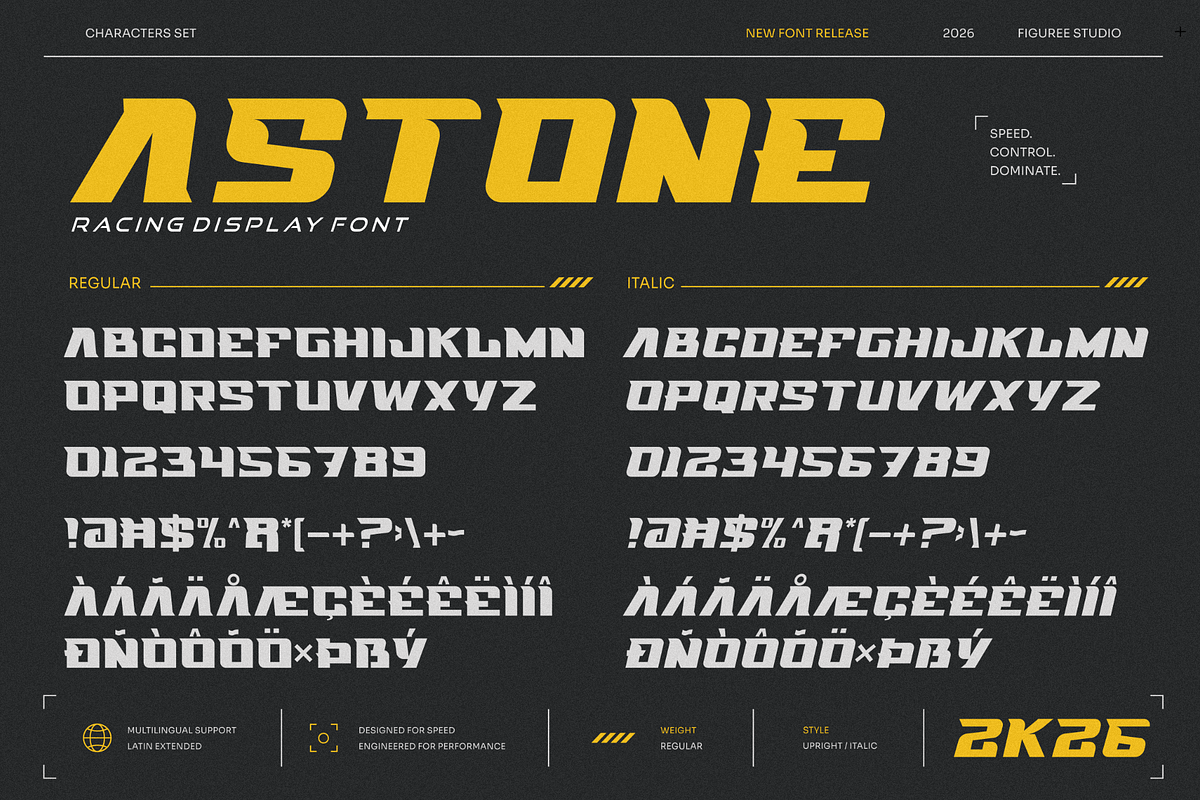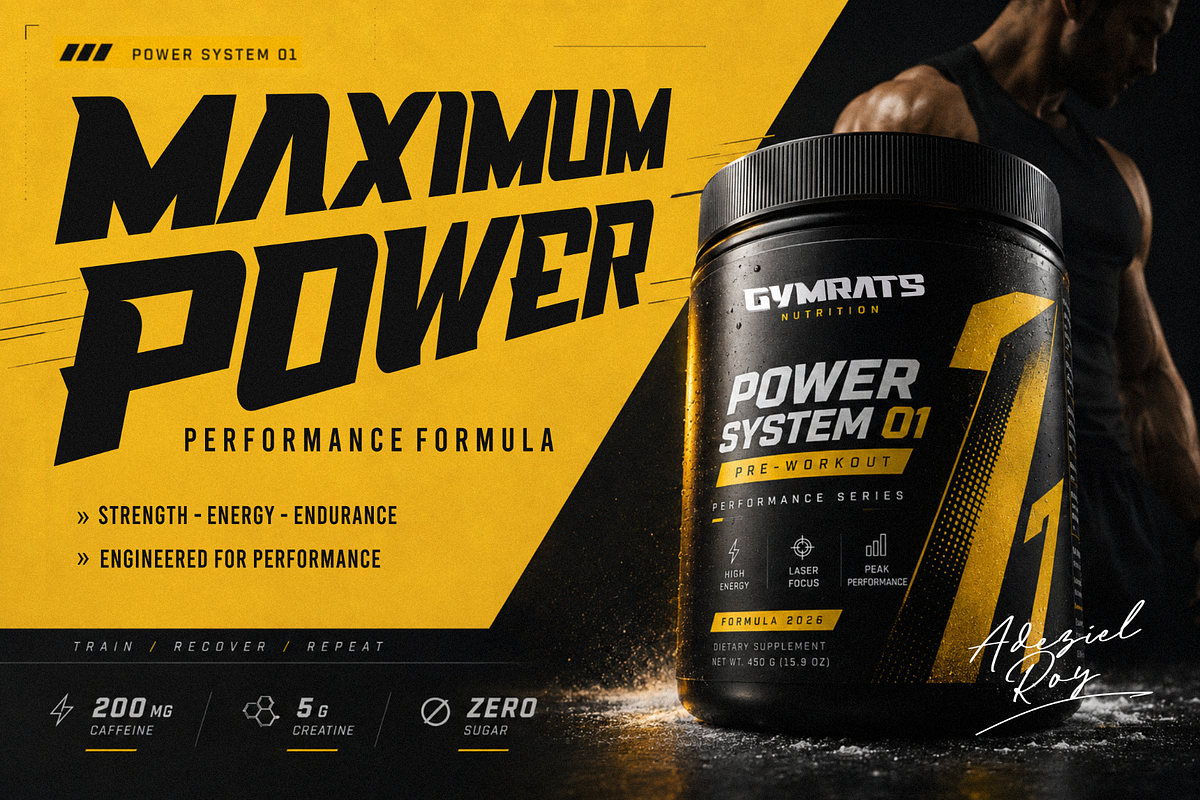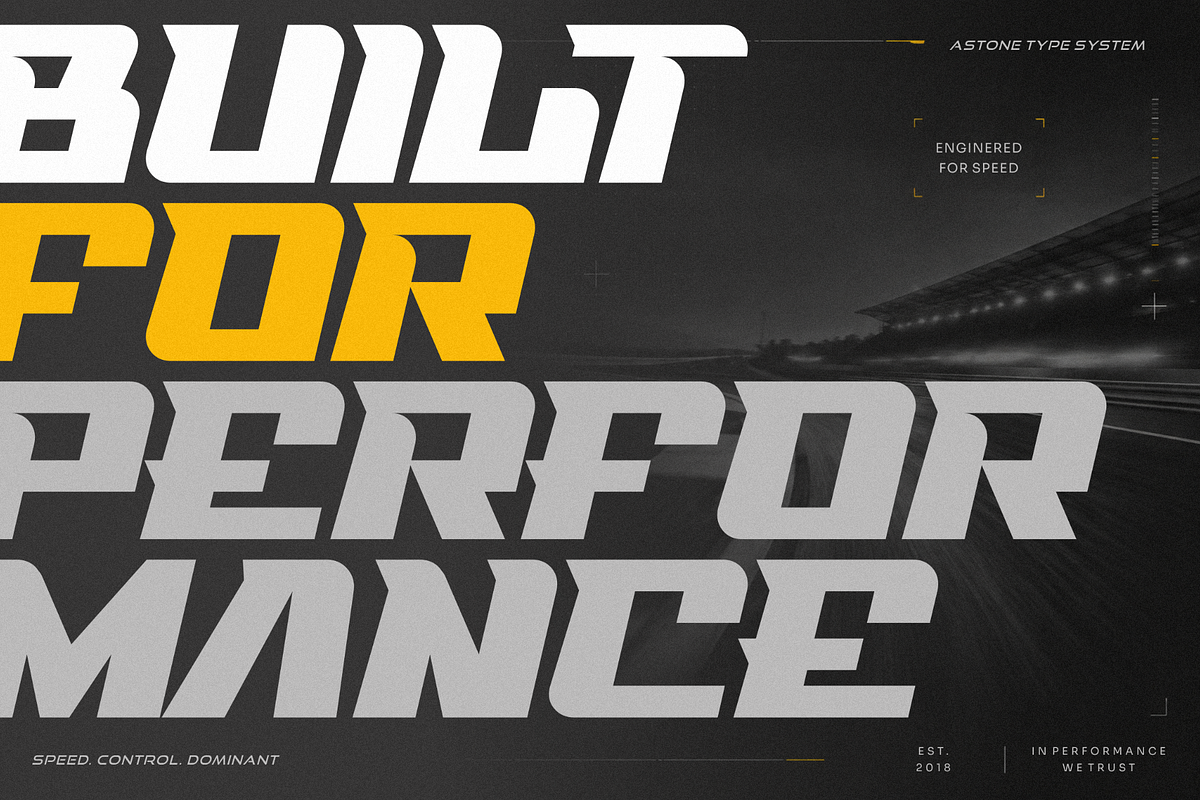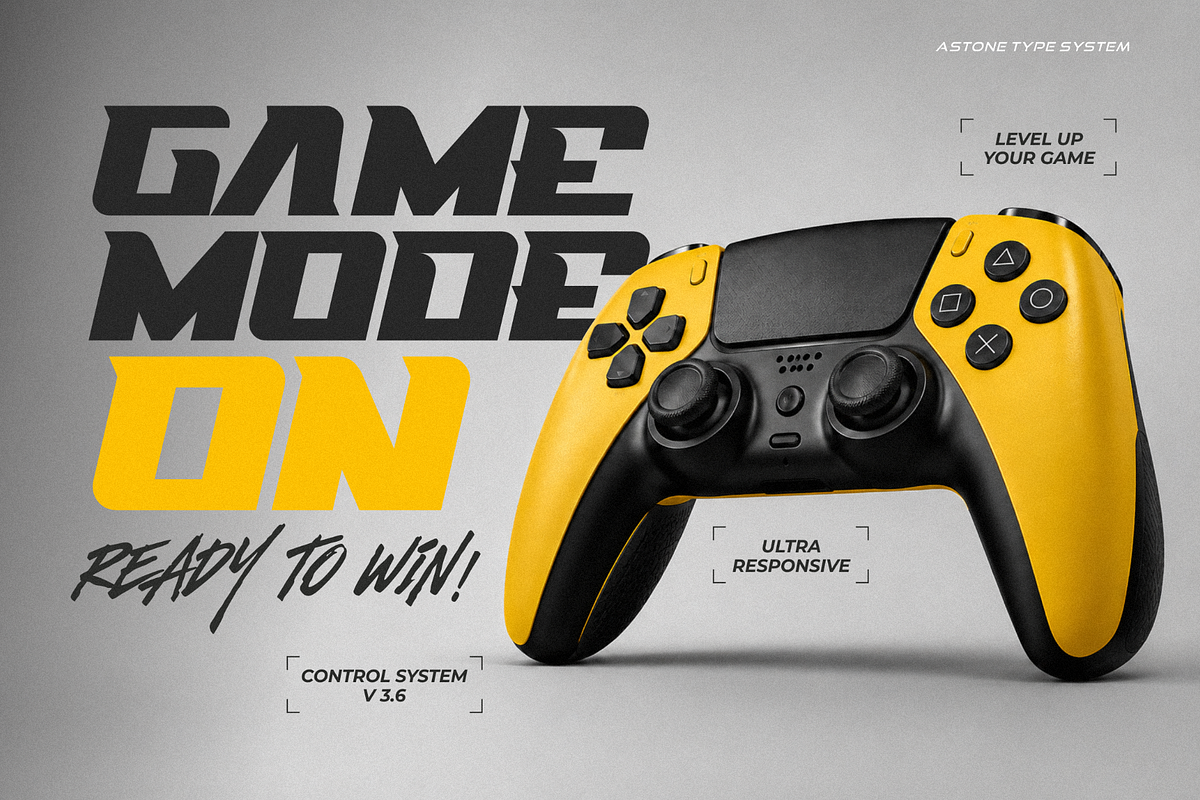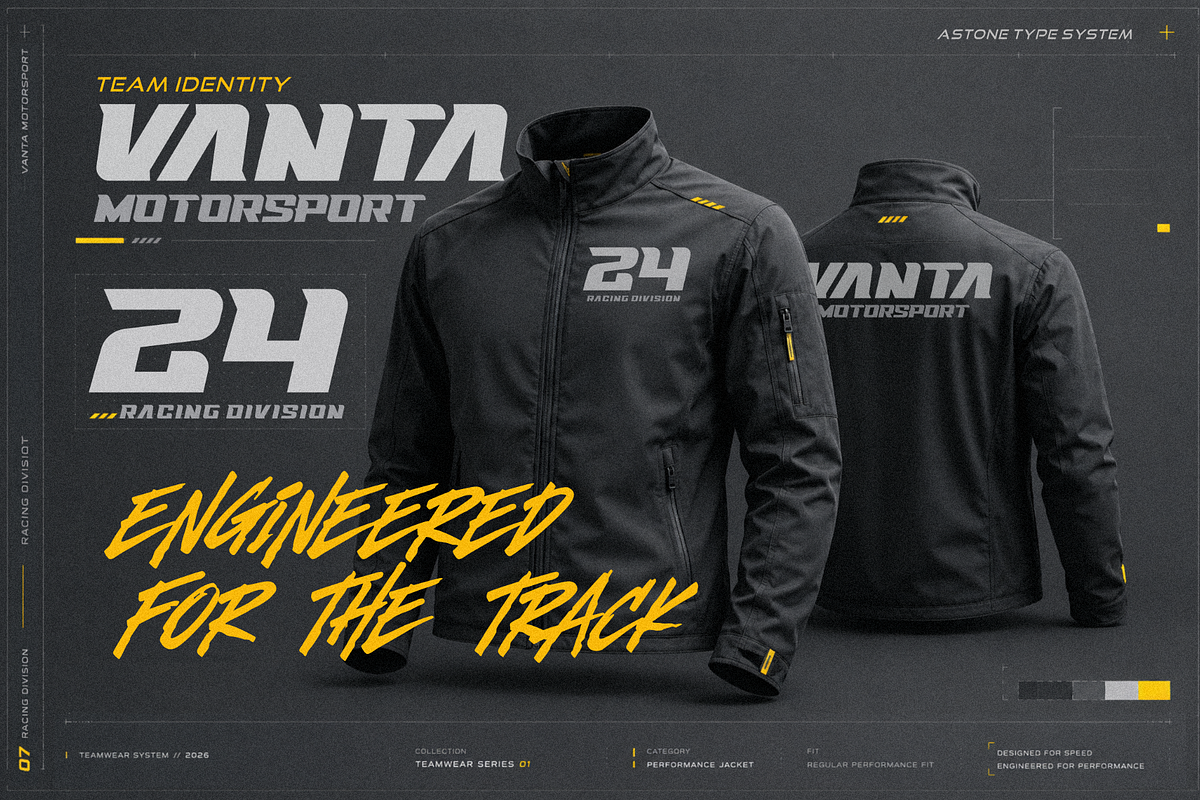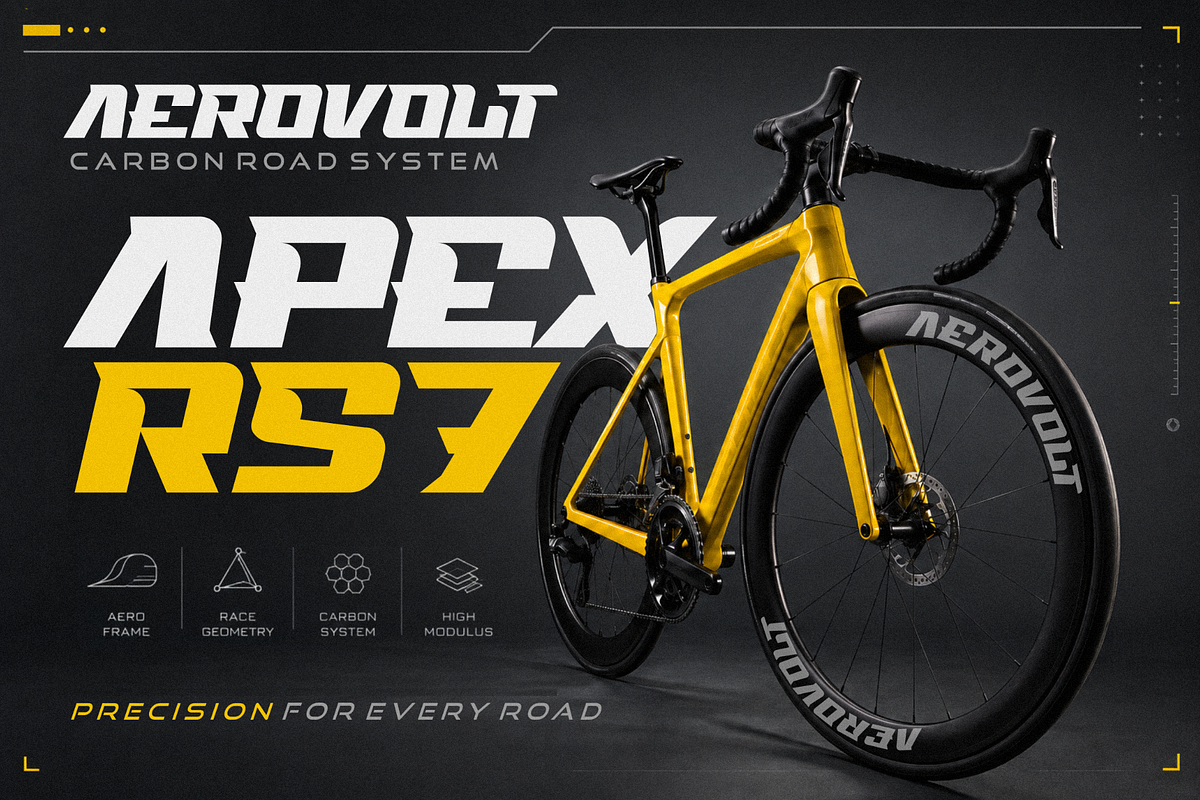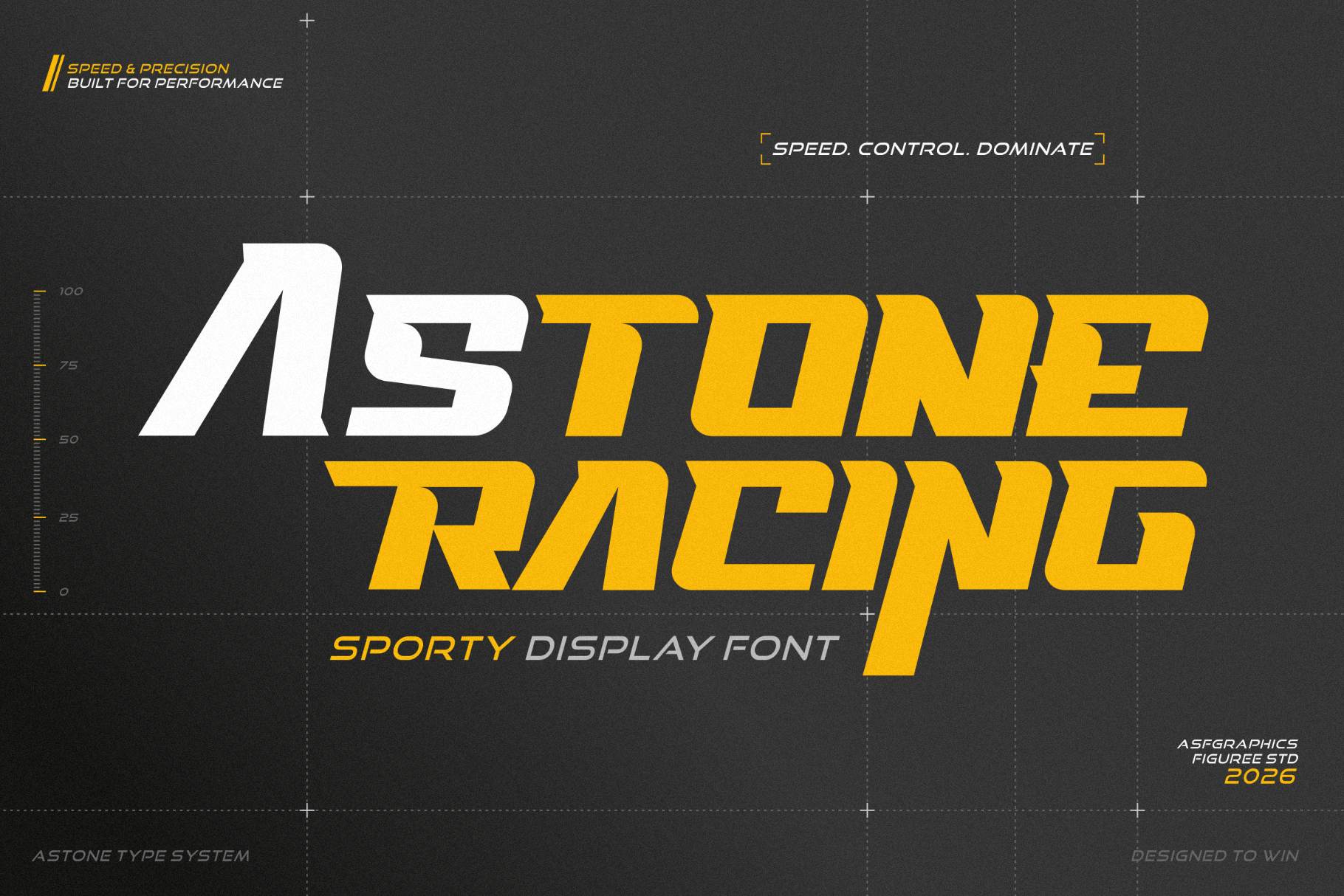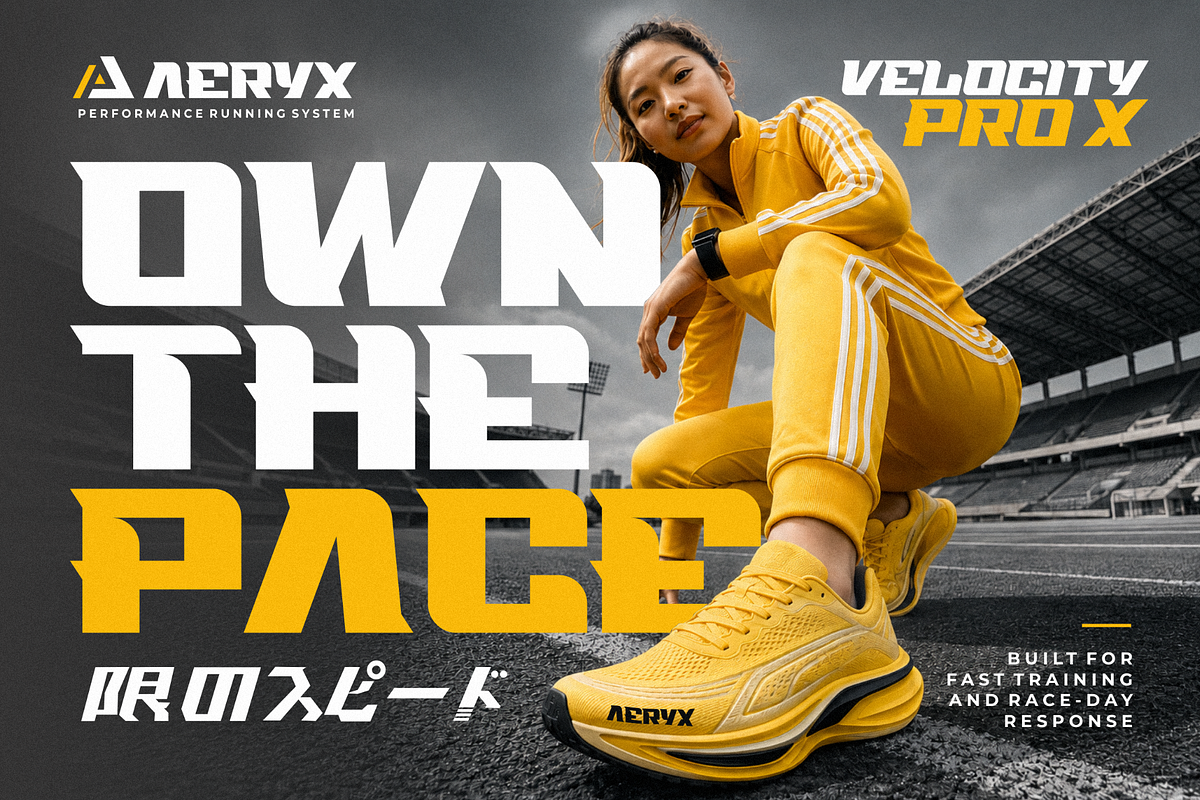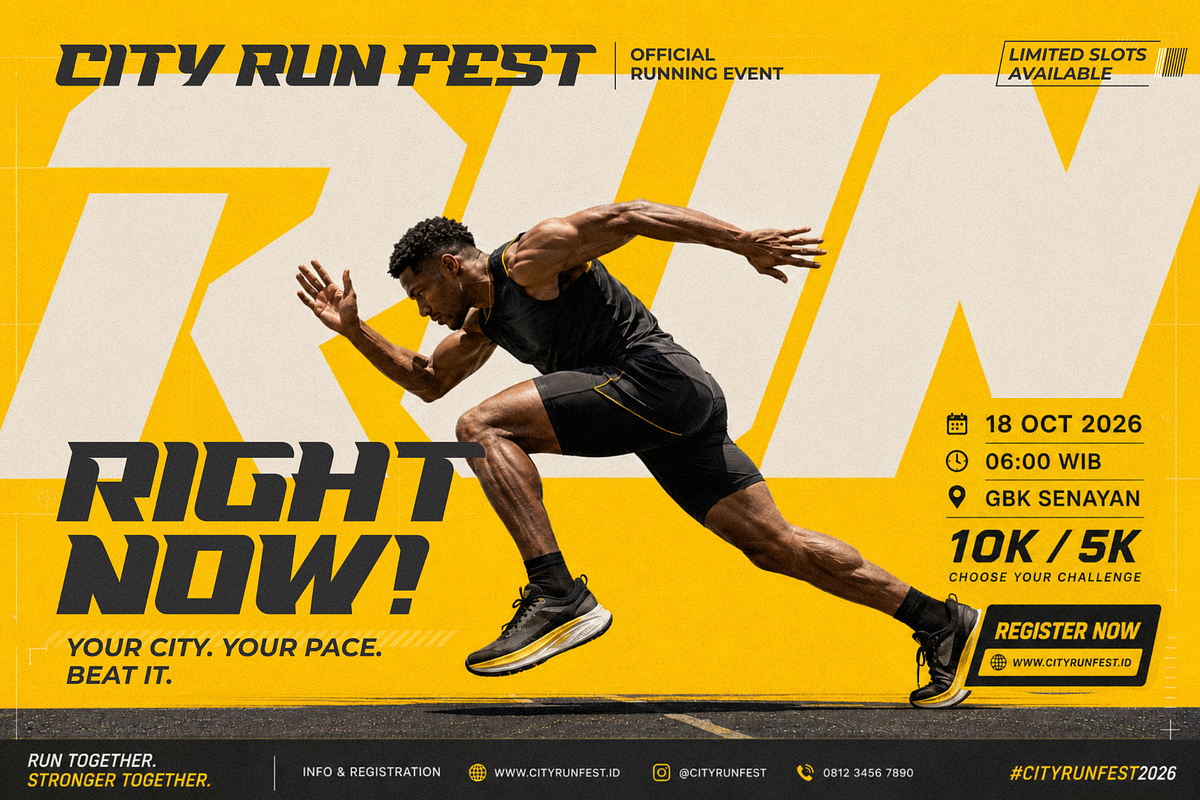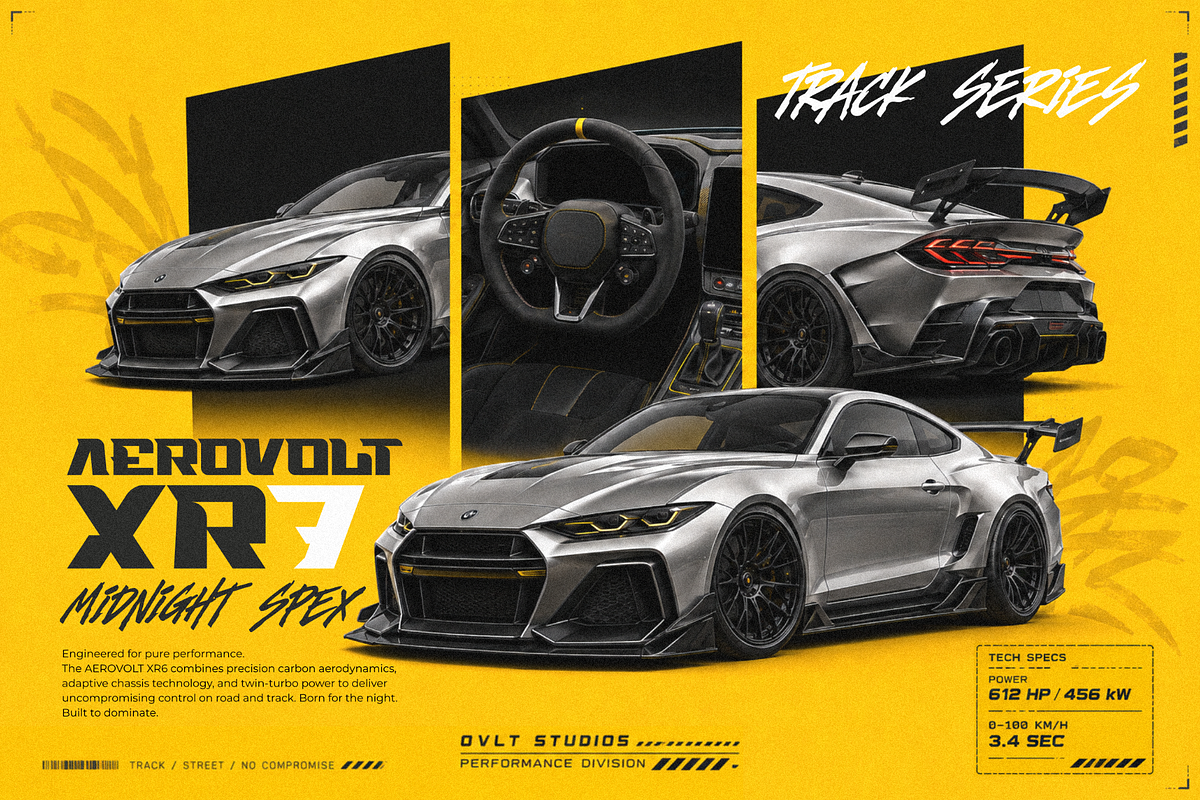
Astone - Racing Display Font
Astone – Racing Display Font is a dynamic display typeface created for designs inspired by speed, competition, motorsport, and high-energy visuals. Its strong letterforms and forward-moving character help headlines feel fast and assertive, making it a natural choice for projects that need immediate visual impact.
Designed around the visual language of racing, Astone works especially well for motorsport posters, racing event graphics, automotive advertising, game titles, esports graphics, tournament promotions, vehicle graphics, racing team visuals, YouTube thumbnails, social media campaigns, and action-focused promotional materials.
The font comes in Regular and Italic styles, allowing you to build stronger typographic hierarchy across a project. Use Regular for solid headlines, titles, numbers, and supporting information, then switch to Italic when you want to emphasize motion, acceleration, or competition.
Astone includes all caps, numbers, punctuation, and symbols, giving you the characters needed for expressive display typography. Its multilingual support also makes the font suitable for projects created for audiences across different languages.
* Racing-inspired display font
* Strong all-caps character set
* Regular and Italic styles
* Numbers, punctuation, and symbols
* Multilingual support
* Built for large and impactful typography
* Suitable for racing posters and event graphics
* Works for motorsport and automotive visuals
* Effective for gaming and esports graphics
* Great for headlines, titles, banners, and promotional layouts
* Suitable for print, digital, and web-based creative projects
Why Designers Love It
Astone makes it easy to establish a clear racing atmosphere through typography alone. Its letterforms carry a sense of movement that works naturally with racing photography, track graphics, speed lines, technical layouts, bold numbers, and high-contrast compositions.
The two included styles also provide flexibility when building complete visual systems. Regular can anchor the main message, while Italic can highlight lap times, race numbers, calls to action, event information, or other elements that need additional momentum.
Beyond motorsport, Astone can be used for racing games, esports tournaments, action posters, automotive events, sports graphics, competition campaigns, video thumbnails, signage, and energetic title sequences. Its distinctive display structure helps short words and large headlines become the central visual element of a composition.
Built for Speed-Driven Visuals
When your project needs typography that communicates speed, racing, competition, and movement, Astone gives you a focused visual direction from the first headline. Use it to create race-day posters, motorsport campaigns, gaming graphics, automotive promotions, and high-impact titles that capture the energy of the track and push every composition forward.